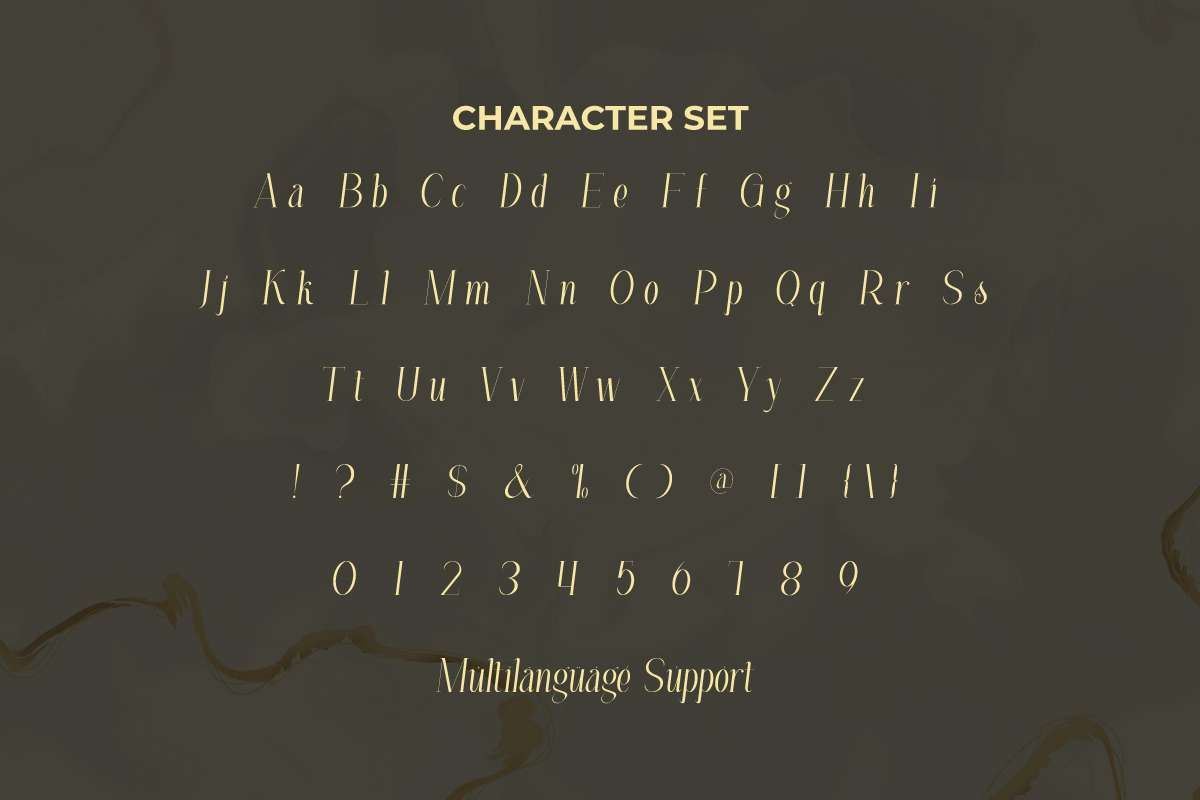
Luxurious Display Font
Luxurious Font is a modern serif display font, by RaisProject. As the name implies, this font has exclusive luxury for your various designs. Use this font right away and see how amazing it is!
Luxurious Font is an elegant serif display font. This font carries a minimalist and simple concept to exude its luxury. It will work well in many designs, such as label, business card, signage, product packaging, menu, invitation, greeting card, custom design, brand image, gift box, cover, quote, web, and more!
Luxurious Font includes a full set of Uppercase and Lowercase Letters, Numerals, and large range of punctuation. This expensive font will be suitable for various industries, such as fashion, jewelry and accessories, beauty product, event organizer, advertisement, photography, printing, publishing, etc.